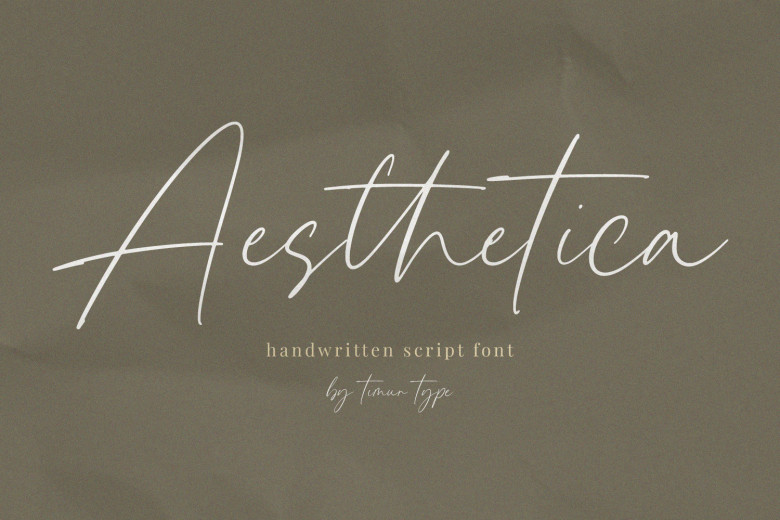
Aesthetica Handwritten Font
Aesthetica is a very modern and fresh Handwritten Script font that will give a warm and inviting feel to your business. Use the fonts and see for yourself the miracle. This font is perfect for product packaging, branding project, social media, wedding, and simply for the overlaying words on the background.
Aesthetica Handwritten Script Font